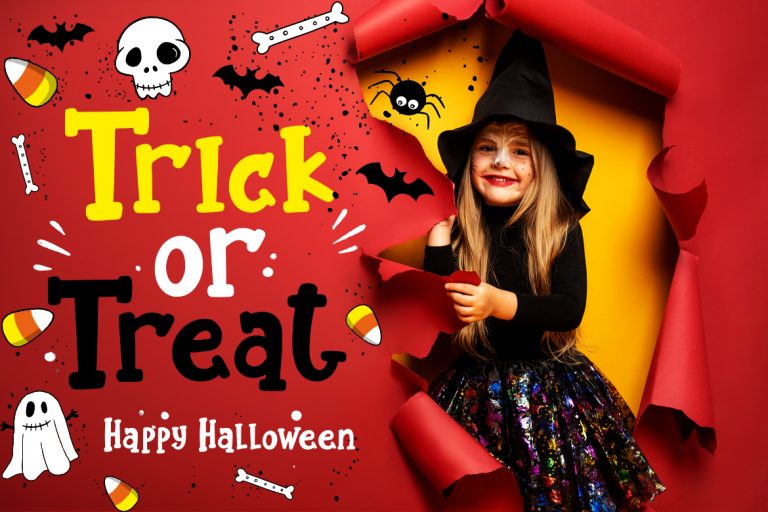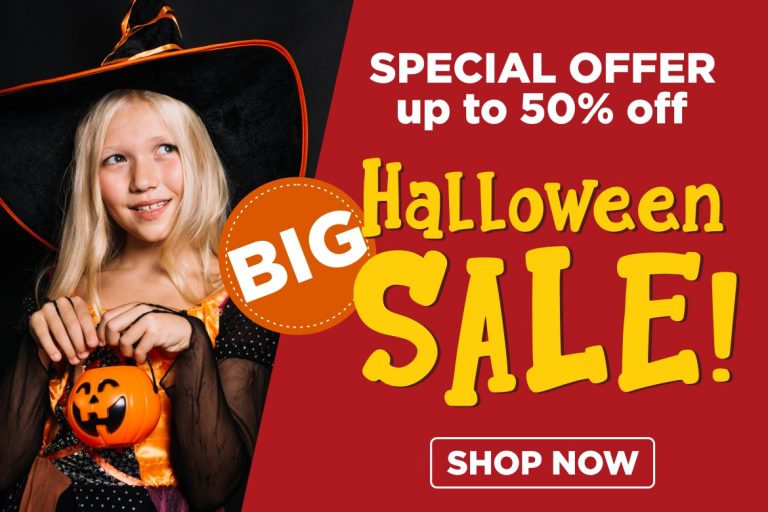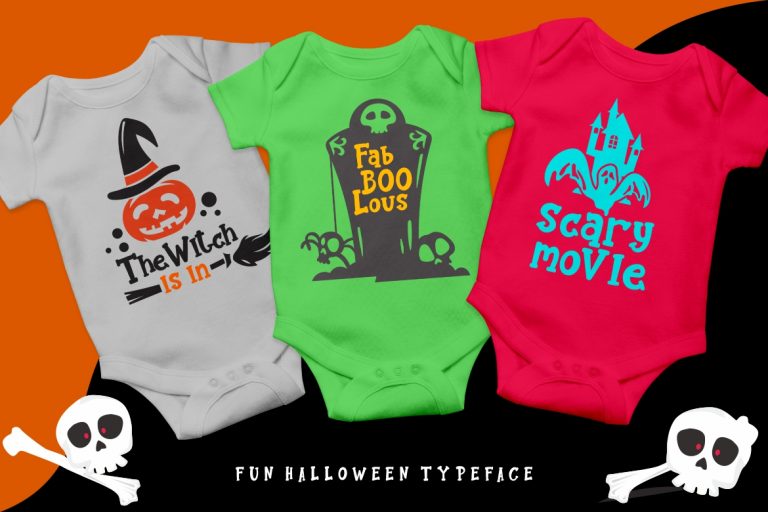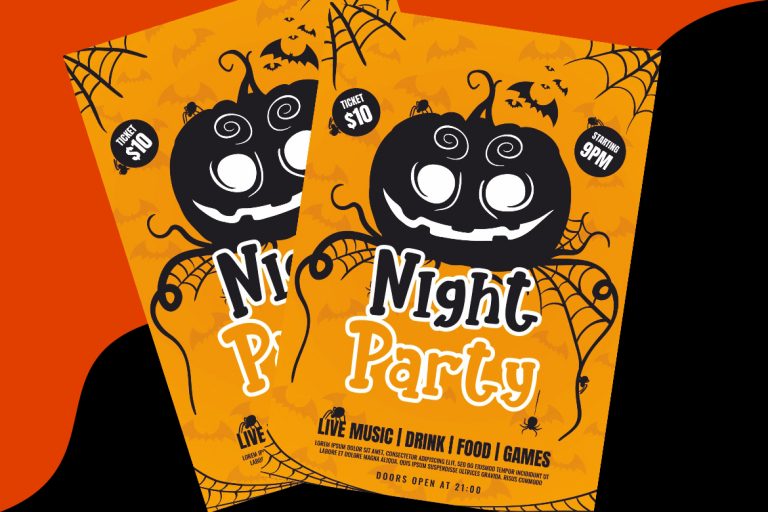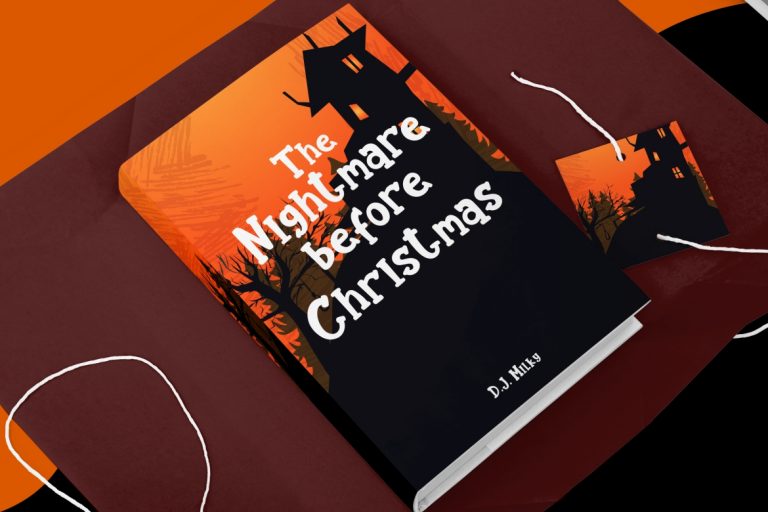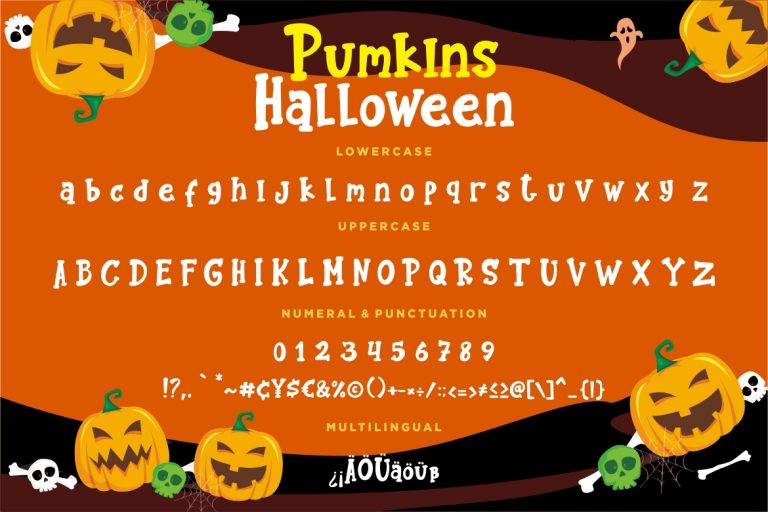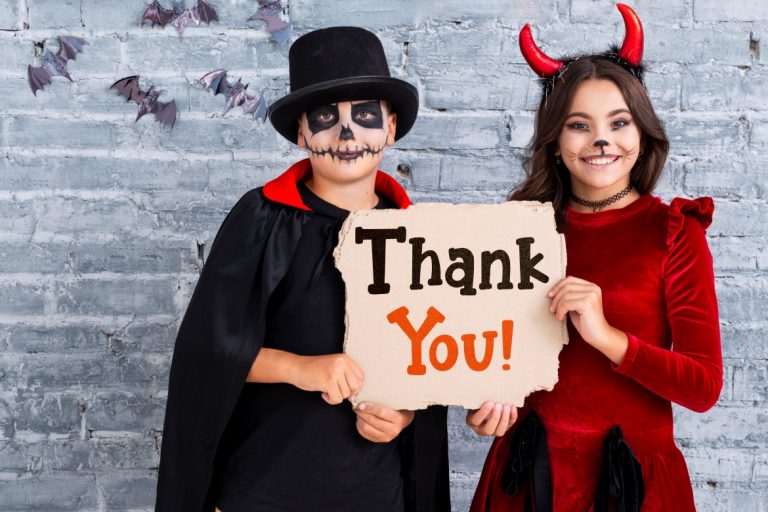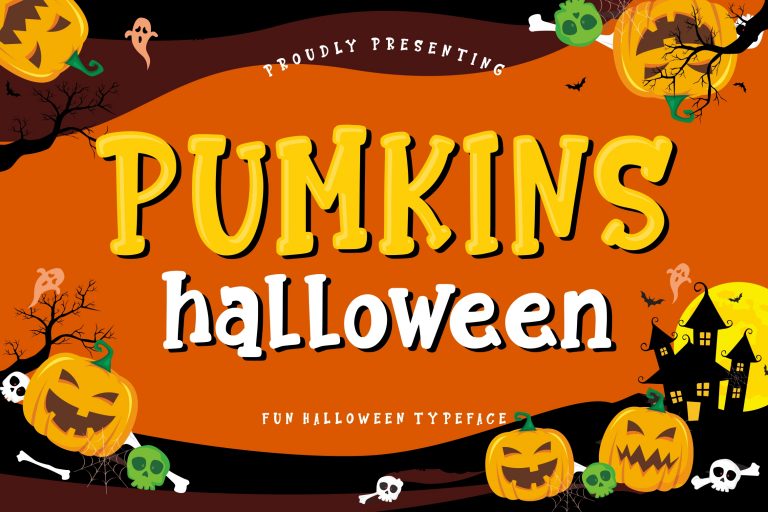
Pumkins Halloween is fun and joy bold font which suitable to use for halloween related occasion.
Pumkins Halloween is perfect for branding projects, logo, wedding designs, social media posts, advertisements, product packaging, product designs, label, photography, watermark, invitation, stationery and any projects that need handwriting taste.
• Fonts include multilingual support for; ä ö ü Ä Ö Ü ß ¿ ¡
Pumkins Halloween